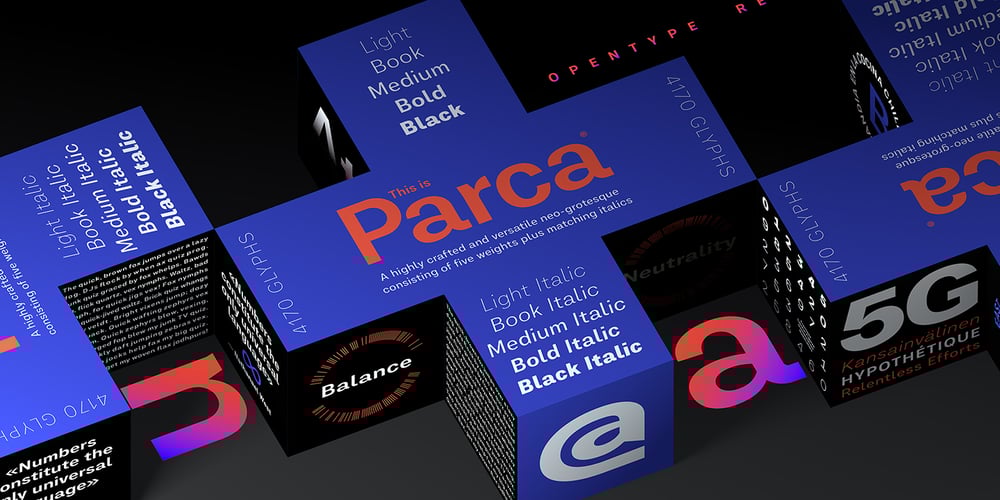
Parca
Parca font
Parca Font Family was designed by Bruno Sellés and published by Vasava Fonts. Parca contains 10 styles and family package options. Parca is a straightforward new take on the classic tradition of Grotesk sans, setting a new standard in the category. The letterforms are crafted with a gentle and careful drawing process that features small details like subtle tappering on the stems and optical corrections avoiding excessive geometry artefacts. Parca is indicated for design projects and branding when you are in the need of a neutral yet warm feeling allowing the content to be the focus and letting the forms to support it. A careful kerning and spacing features have been develop for the font, allowing it to be used either for small text or huge headlines. Parca is presented in a robust family of five weights plus matching italics and it supports most of the latin-based European languages.